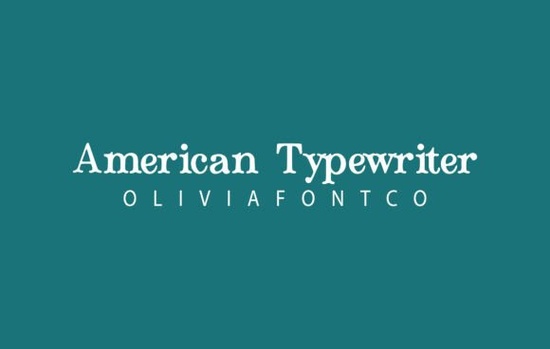
If you need a typeface that feels both structured and personal, the American Typewriter Font delivers exactly that. It blends clean machine-style lines with a soft handwritten warmth, making it readable enough for body copy and distinct enough for headlines. Designers, small business owners, and crafters often choose this style when they want projects to look polished without feeling stiff.
What makes this typeface work for everyday projects?
The real strength here is balance. Many handwritten styles sacrifice legibility for flair, but this one keeps character shapes open and spacing consistent. Your customers can easily read packaging labels, and wedding guests will instantly recognize names on place cards. The subtle romantic touch softens the mechanical roots, giving it a friendly vibe that translates well to both print and screen. You’ll also notice how well it handles different sizes. At larger point sizes, the handwritten details stand out on magazine covers or social media graphics. Shrunk down for business cards, it stays crisp, saving you from swapping typefaces when layouts shift.
Where does it fit best in your creative workflow?
This font covers a wide range of practical uses. Print-on-demand sellers can apply it to quote tees and mugs where clarity matters. Small businesses often use it for thank-you notes or packaging inserts that need to feel established yet personal. It’s especially reliable for:
- Wedding invitations and reception signage
- Handmade product labels and pricing tags
- Social media templates and Pinterest graphics
- Journal covers, planners, and printable worksheets
Because the letterforms are evenly weighted, it prints cleanly on textured paper and fabric transfers. You won’t lose fine details during production, which is a common issue with overly decorative fonts. The consistent baseline also makes alignment much easier when you’re working in Canva, Illustrator, or Photoshop.
How do you pair it without cluttering your layout?
Typography works best when fonts complement rather than compete. Since this typeface carries a gentle handwritten feel, pair it with something neutral for supporting text. You might combine it with a rugged slab style for a grounded look, or try a modern geometric alternative for cleaner layouts. If your project leans toward soft branding, test it alongside a delicate serif companion to keep the mood light. For seasonal product lines, grabbing a coordinated font bundle often saves hours. When you want to compare weights, you can also browse related typewriter designs before finalizing your choice.